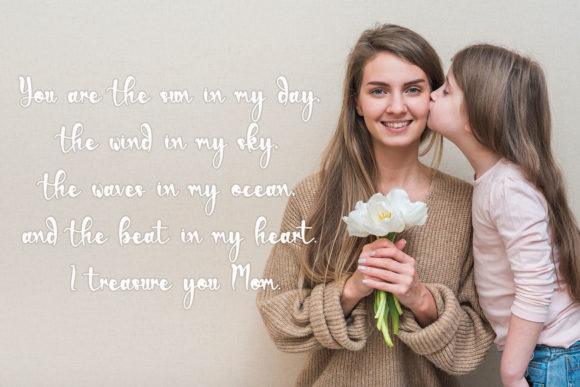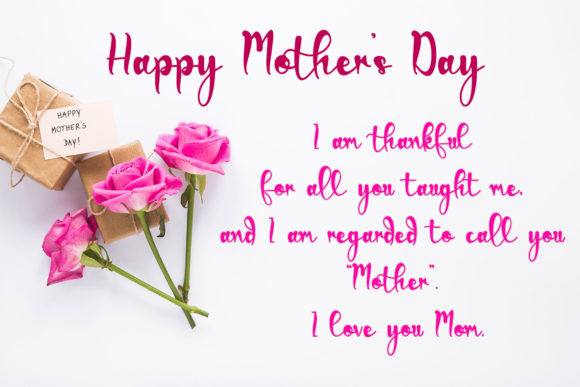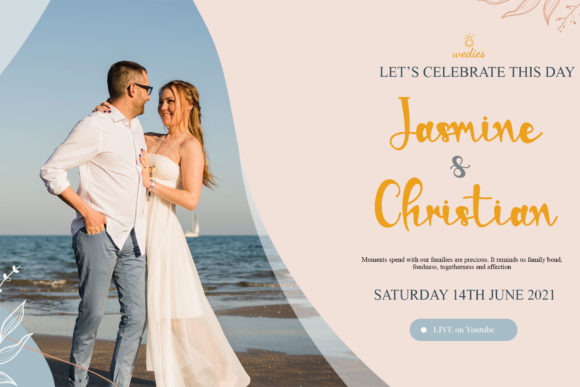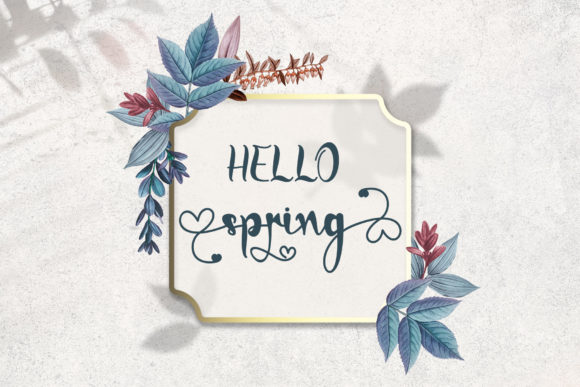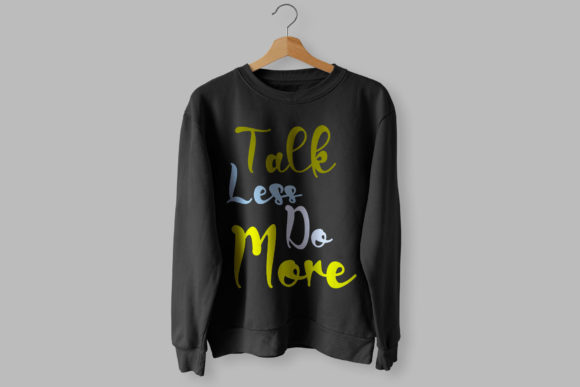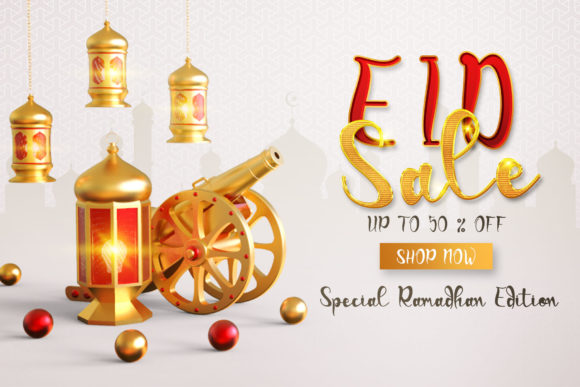
Introduction to Radisthy Font
Have you ever been working on a creative project, pouring your heart and soul into it, only to feel like it’s missing that special something? You know, that elusive touch that sets it apart from the rest? For designers, finding the perfect font can be the game-changer that takes their design from good to great. That’s where Radisthy Font comes in – a gorgeous and bold handwritten font that’s sure to add a stylish touch to your headlines and logotype projects.
With its strong, confident, and dynamic feel, Radisthy Font is the perfect design resource for any creative project. Whether you’re working on a free download or a high-quality print piece, this font is sure to bring a touch of nostalgia and sophistication to your design. And the best part? It’s PUA encoded, making it easy to access all of the glyphs and swashes you need to make your design truly shine.
Key Features of Radisthy Font
- High-quality design resource ideal for creative projects, with a unique and stylish aesthetic.
- Features a transparent background, allowing for seamless integration with any background or design element.
- Designed to be highly legible and versatile, making it suitable for a wide range of applications, from digital to print media.
- Comes in a range of sizes, from 12px to 72px, and can be easily resized to fit any design requirement.
- Resolution-independent, ensuring crisp and clear display on any device or screen resolution.
- Perfect for designers, artists, and creatives looking for a unique and high-quality design resource to elevate their work.
Honest Review: Radisthy Font
As a designer, I’m always on the lookout for high-quality design resources that can elevate my creative projects. The Radisthy Font has been a game-changer for me, and I’m excited to share my thoughts on it.
What works well: ✨ The Radisthy Font offers a unique, modern aesthetic that’s perfect for any project. Its transparent background makes it easy to layer and manipulate, giving me endless possibilities for customization. The font is also incredibly versatile, suitable for a wide range of applications from logos to typography.
- High-quality design with crisp lines and clean shapes
- Translucent background for seamless layering
Limitations: ⚠️ While the Radisthy Font is an excellent addition to my design arsenal, I do find that it can be a bit finicky when used with certain software. Additionally, the font’s subtlety may make it difficult to read at smaller sizes.
Overall, I’m thoroughly impressed with the Radisthy Font. Its unique design and versatility make it a valuable resource for any designer, and its free download is a definite bonus. I highly recommend giving it a try for your next creative project.
Tips for Getting the Most Out of Radisthy Font
For a high-quality design, use the Radisthy Font in combination with a transparent background to create a unique and creative project. Experiment with different font sizes, colors, and styles to get the desired effect.
The Radisthy Font is ideal for various design projects, including logos, business cards, and social media graphics. Its unique design and high-quality features make it a valuable design resource for any creative project.